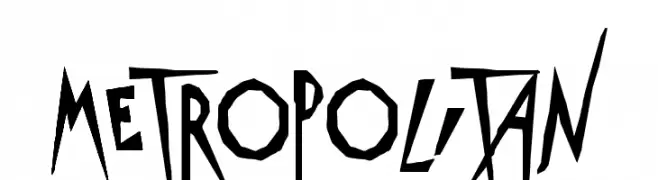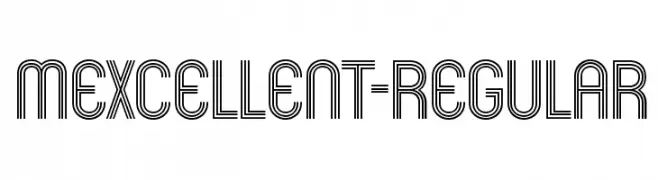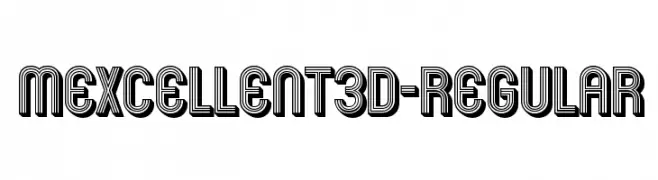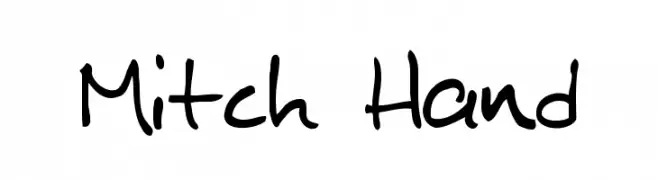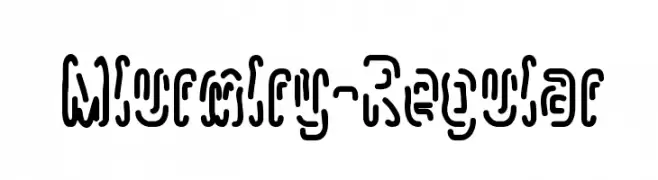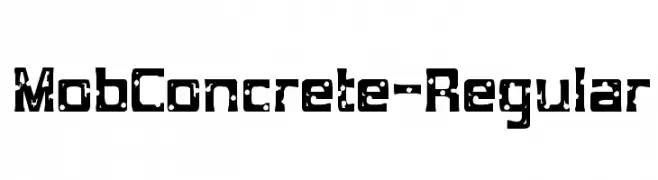
( Fonts by Daniel Werneck )
A bold, angular font with sharp, dynamic lines and a striking appearance.
( Fonts by www.typodermicfonts.com - Ray Larabie )
A geometric, multi-line font with a modern and bold aesthetic.
( Fonts by www.typodermicfonts.com - Ray Larabie )
A bold, three-dimensional font with a layered, geometric design.
( Fonts by Alex Squack - http://twitter.com/NoGoodToMe )
A bold, playful font with a hand-drawn, whimsical style.
( Fonts by www.typodermicfonts.com - Ray Larabie )
A bold, stencil-like font with rounded strokes and intricate cutouts.
( Fonts by www.typodermicfonts.com - Ray Larabie )
A bold, industrial font with a distressed, concrete-like texture.